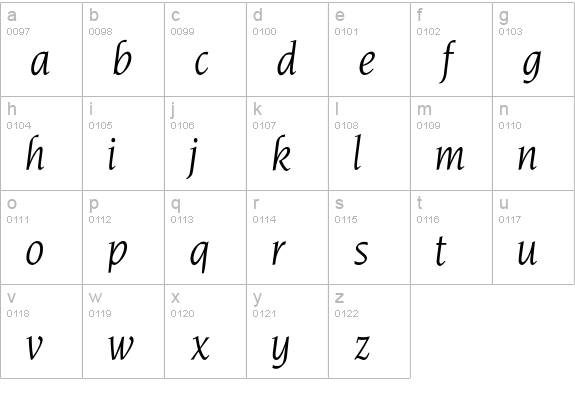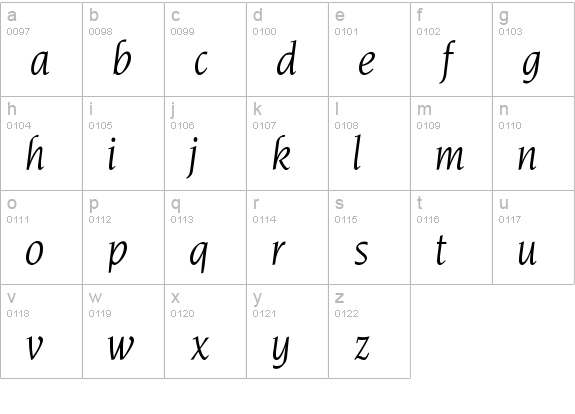
NovareseBookItalic Font Details
NovareseBookItalic is a beautifully crafted font that exudes elegance and sophistication. Its delicate italic style adds a touch of grace to any design project, making it perfect for use in both print and digital media. The flowing curves and subtle angles of this font create a sense of movement and fluidity, making it a versatile choice for a wide range of applications. What sets NovareseBookItalic apart is not only its stunning design, but also the fact that it is freely available to download at FontsMarket.com. This means that you can easily access this high-quality font without any cost, allowing you to enhance your projects with a touch of sophistication and style without breaking the bank. Whether you're designing a wedding invitation, creating a logo, or crafting a website, NovareseBookItalic is sure to elevate your work and leave a lasting impression. Download this exquisite font today and add a touch of elegance to your designs.